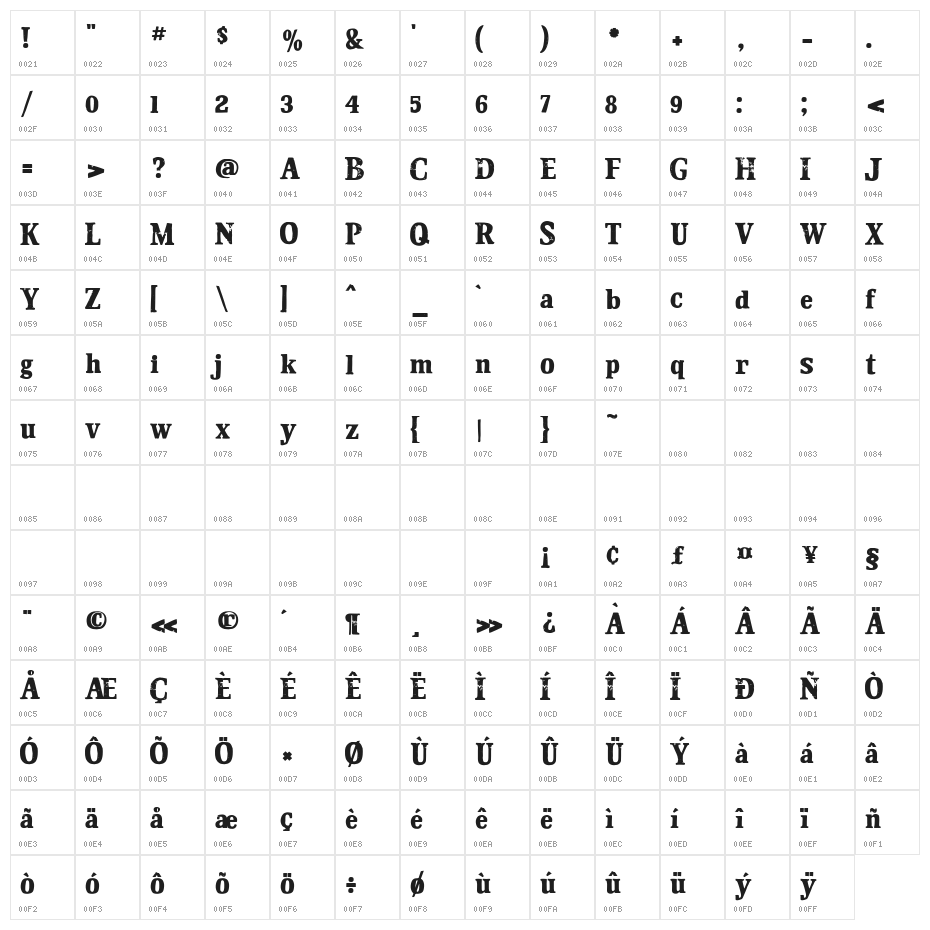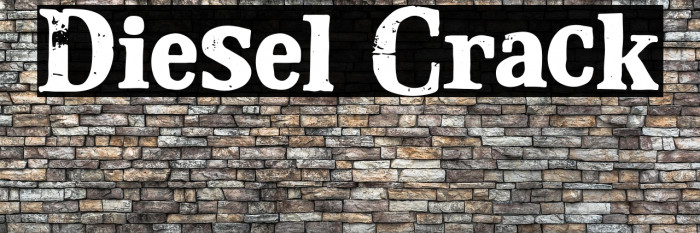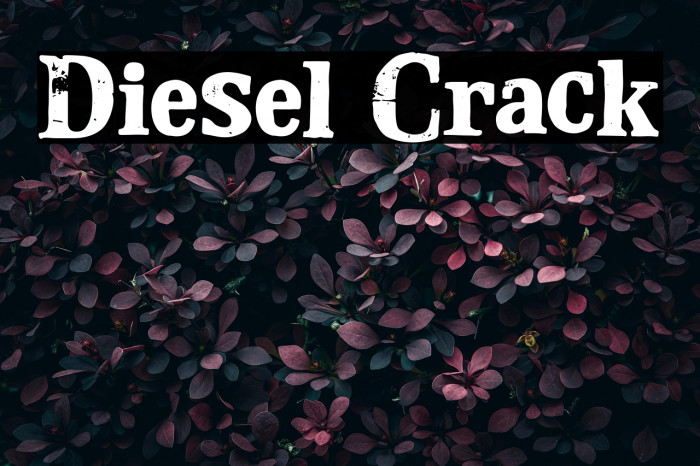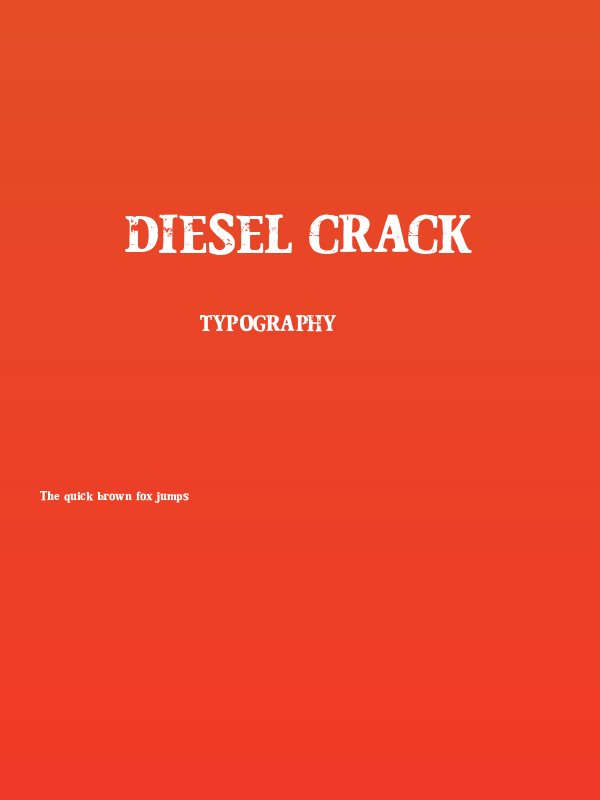
Diesel Crack Font
Diesel Crack Description
This font features a rugged, distressed appearance with a bold and impactful presence. The characters are designed with a textured, worn-out look, giving them a vintage and industrial feel. The uppercase and lowercase letters maintain a consistent style, with thick strokes and slightly irregular edges that enhance the distressed effect. Numbers and special characters follow the same design, ensuring a cohesive look across all elements. The font's boldness and unique texture make it suitable for projects that require a strong, eye-catching display.
| Proposed Projects | Ideal for branding, posters, album covers, and any project needing a bold, vintage aesthetic. |